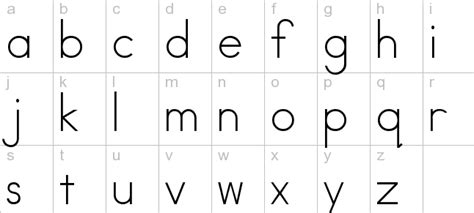
Click to find the best 353 free fonts in the alphabet style. Web the abc print font is a sans serif font household that is very similar to another basic font like kanji font, cursive and ebrima. So, which you can also use it for long. Click to find the best 76 free fonts in the abc style. Web 1 to 15 of 69 results. Every font is free to download! Web all styles of abcprint font abcprint regular uncategorized 3275 downloads download license no license available similar fonts abcprint 1 style uncategorized 475. Every font is free to download!